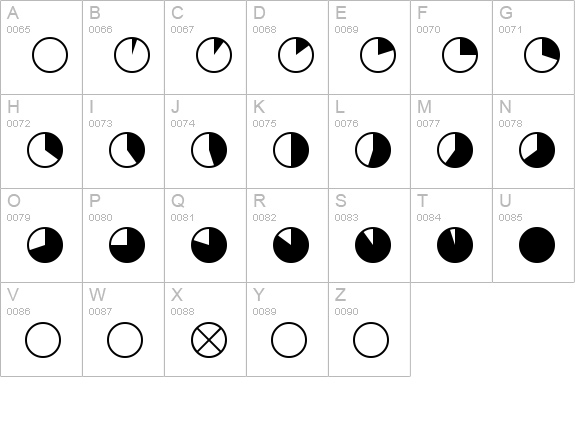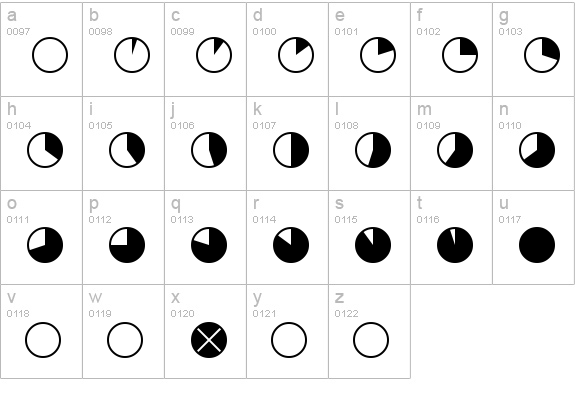
Pie charts for maps Font Details
The Pie charts for maps font is a visually stunning and highly functional typeface that adds a touch of creativity and elegance to any design project. With its unique and eye-catching pie chart-inspired design, this font is perfect for creating eye-catching infographics, data visualizations, and presentations. What sets Pie charts for maps font apart is that it is not only aesthetically pleasing but also incredibly versatile. The font includes a wide range of characters and symbols, allowing you to effortlessly create stunning pie charts, graphs, and diagrams that effectively convey information in a visually appealing way. One of the most impressive features of the Pie charts for maps font is that it is freely available to download at FontsMarket.com. This means that you can easily access and use this font without any cost or restrictions, making it an ideal choice for both personal and commercial projects. Whether you're a designer, data analyst, or simply someone who appreciates beautiful typography, the Pie charts for maps font is a must-have in your font collection. Its clean lines, precise geometry, and well-balanced proportions make it a versatile and timeless choice that will elevate the visual impact of any design. So why wait? Download the Pie charts for maps font today and unlock a world of possibilities for your creative projects.